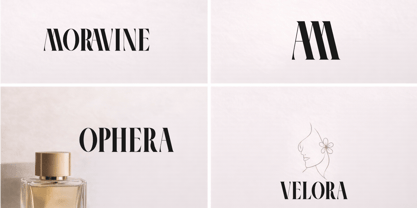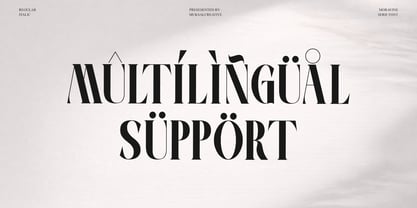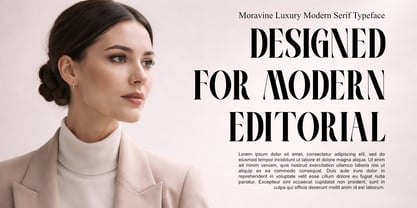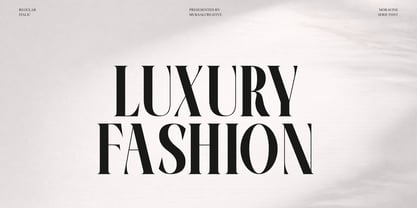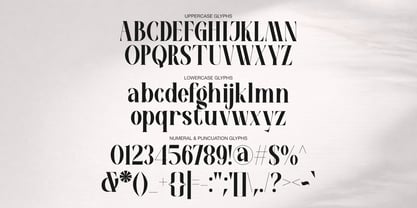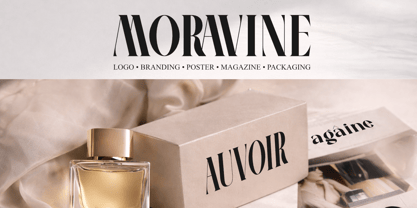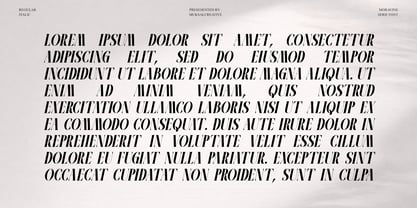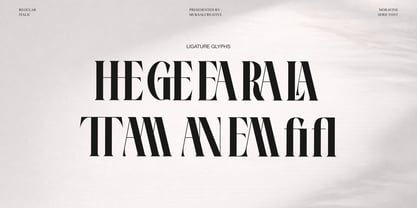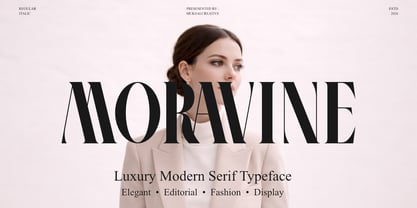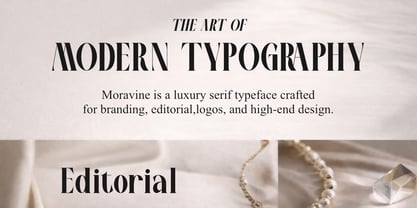
Moravine
Moravine is a modern editorial serif typeface designed with a refined, elegant, and high-contrast character. Inspired by fashion magazines, luxury branding, and contemporary editorial design, Moravine delivers a timeless yet modern look that elevates any visual identity. With sharp serif details and balanced proportions, Moravine performs beautifully in both large headlines and refined branding applications. This typeface is ideal for designers seeking a premium, sophisticated, and fashion-forward aesthetic.